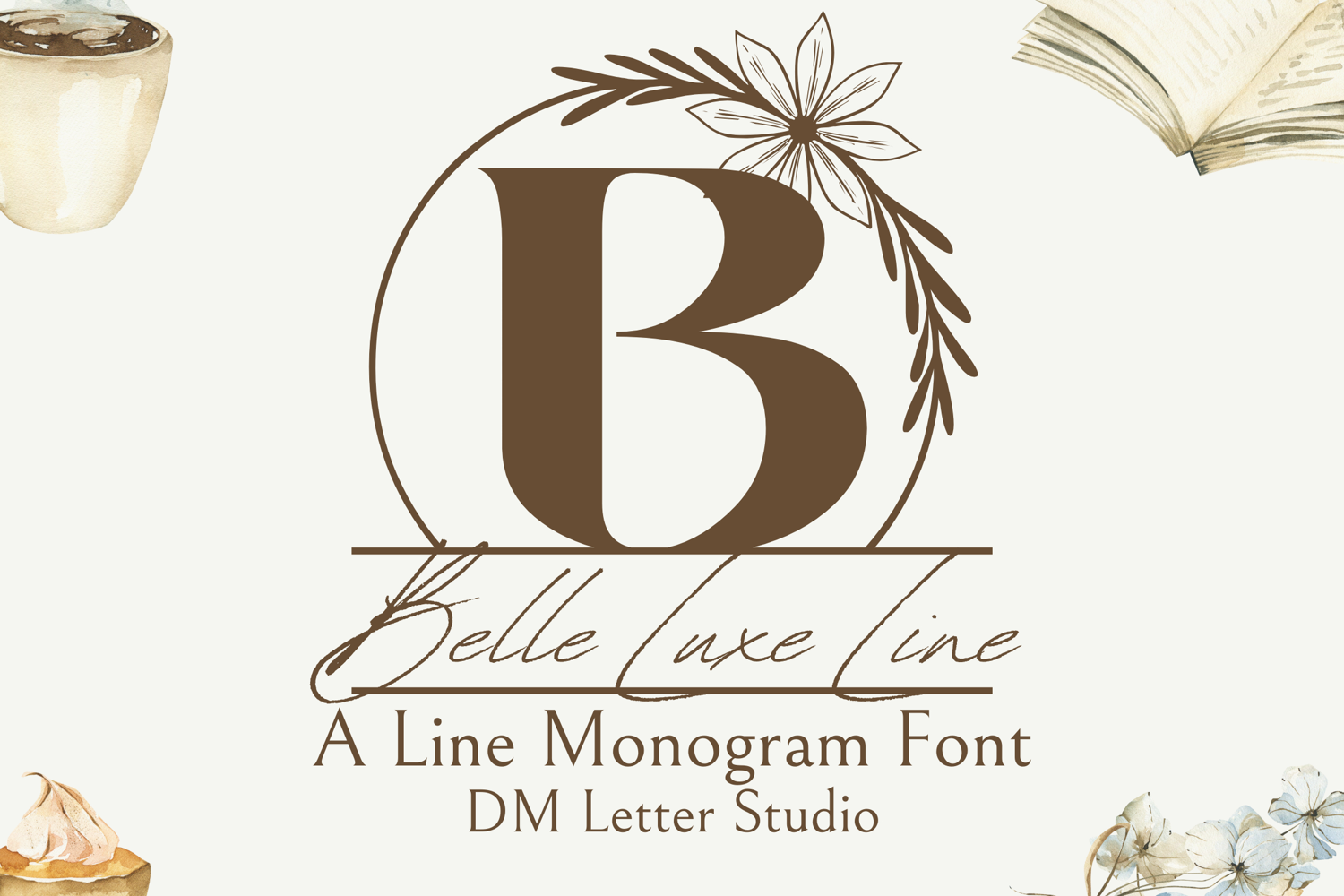
Belle Luxe Line Monogram - Minimalist Luxury Serif Outline
Belle Luxe Line Monogram
Belle Luxe Line Monogram – Minimalist Luxury Serif Outline Font
Belle Luxe Line Monogram is a refined and minimalist monogram font that combines the elegance of classic serif letterforms with the clean sophistication of outline styling. Each uppercase letter is thoughtfully designed to deliver a luxury feel with subtlety and modern flair. Ideal for premium branding, high-end packaging, custom initials, and chic wedding designs.
• Outline Serif Style: Clean monoline outlines for an elegant and modern monogram effect.
• Minimalist Luxury Feel: A perfect blend of structure and sophistication.
• Monogram Ready: Designed for initials, name logos, and personalized upscale projects.
• Ideal For: Luxury branding, wedding stationery, fashion packaging, logo marks, custom gifts, and editorial design.